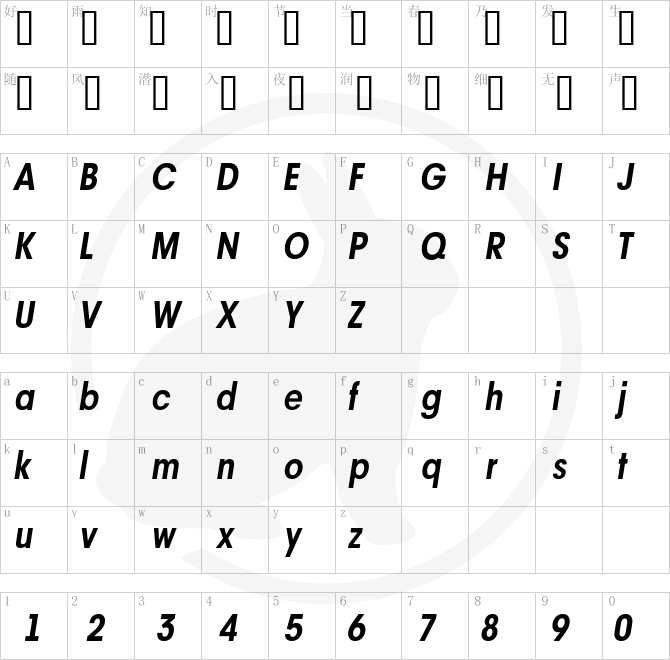
- Font Name:a_AvanteBsNr
- Subfamily:BoldItalic
- Subfamily:Macromedia Fontographer 4.1 a_AvanteBsNr BoldItalic
- Full Name:a_AvanteBsNr BoldItalic
a_AvanteBsNr-BoldItalic.ttf is a very beautiful artistic font, a_AvanteBsNr-BoldItalic.ttf is widely used in the design and printing of various books and pictures,a_AvanteBsNr-BoldItalic.ttf has a strong visual impact,a_AvanteBsNr-BoldItalic.ttf is a commonly used font in newspapers, magazines and books, and is used in posters, e-commerce Poster design, store design, logo design, font design and other fields.a_AvanteBsNr-BoldItalic.